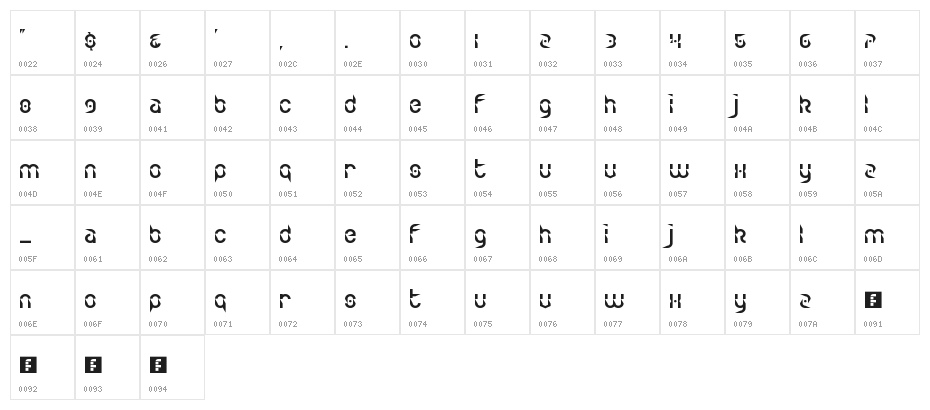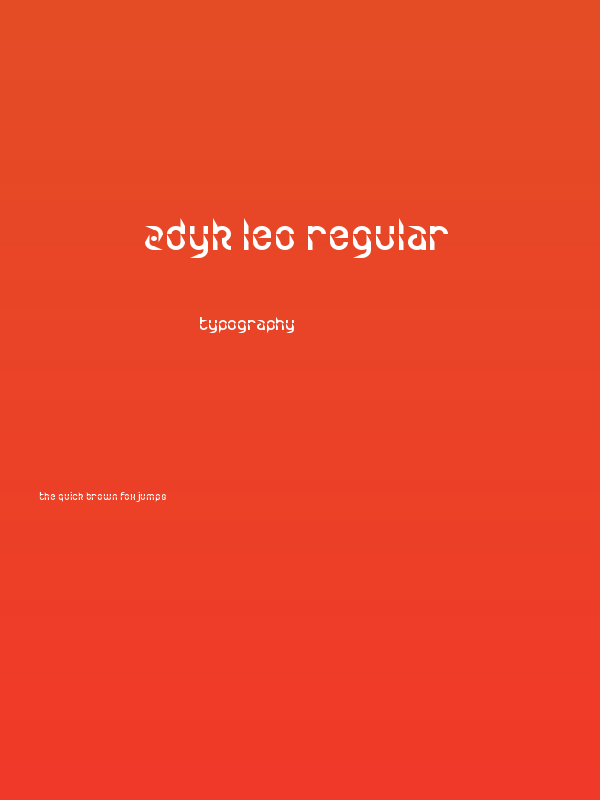
Zdyk Leo Regular Font
Zdyk Leo Regular Description
This font features a bold and geometric design with sharp angles and unique cutouts, creating a futuristic and edgy appearance. The characters are crafted with a high level of contrast between thick and thin strokes, giving it a dynamic and striking look. The font maintains a consistent style across both uppercase and lowercase letters, as well as numbers and special characters. Its distinct style makes it suitable for creative and modern design projects that require a standout typeface.